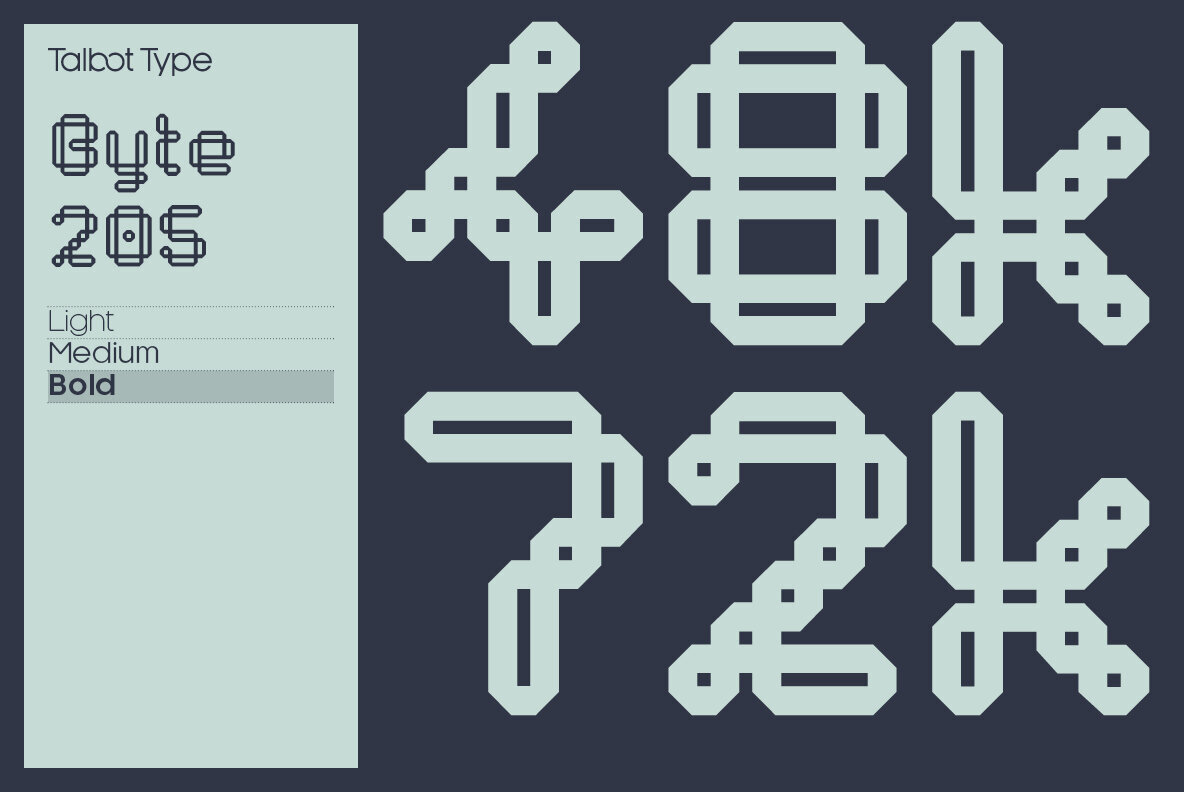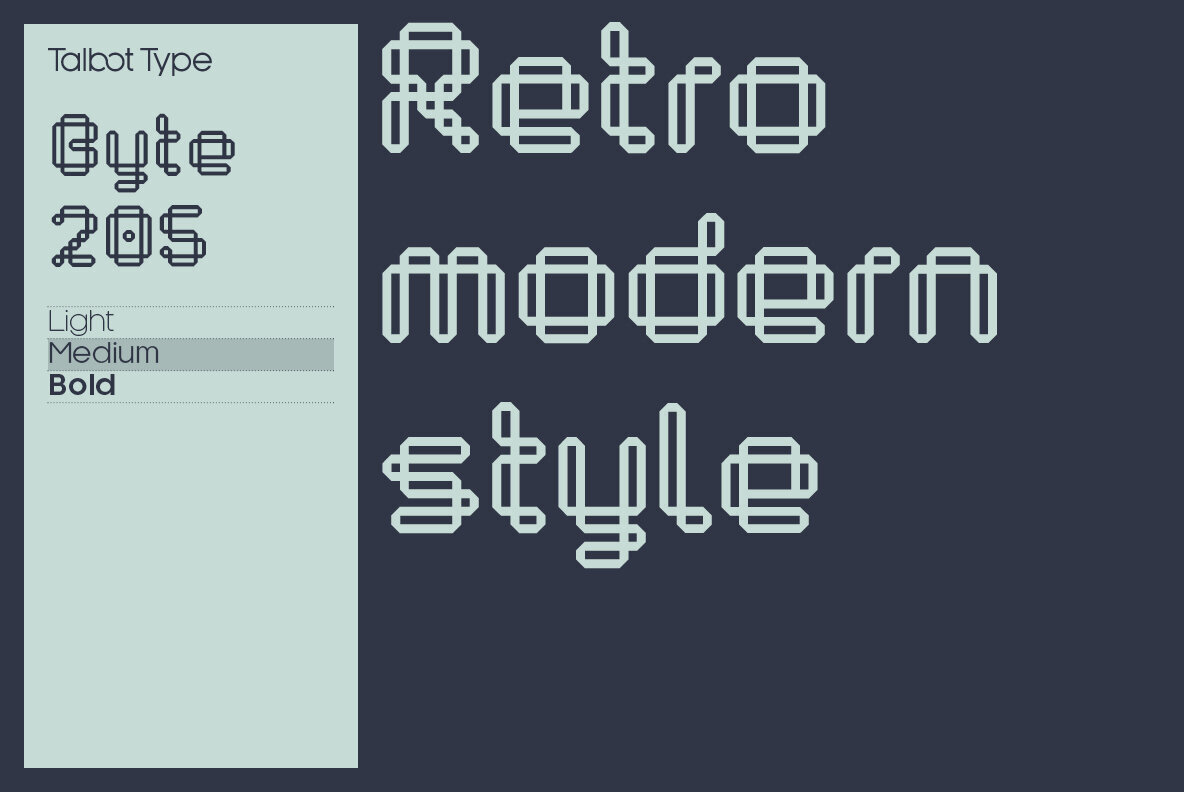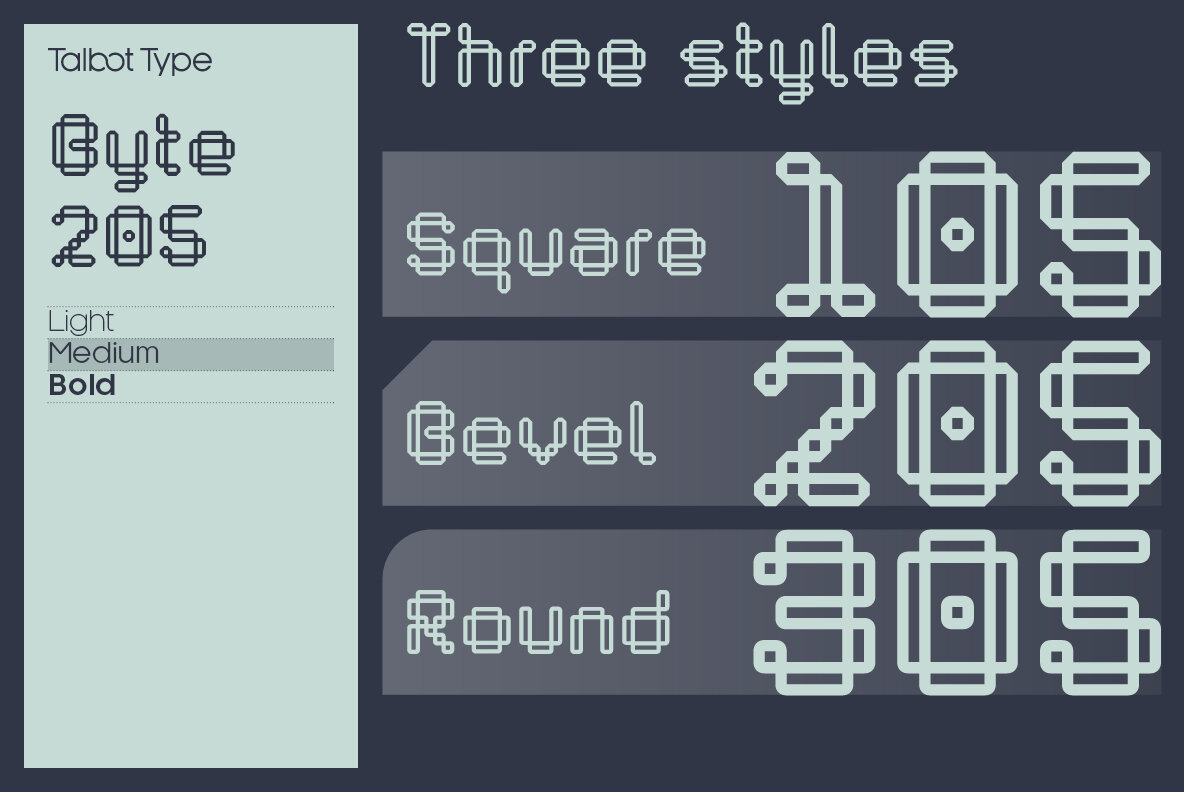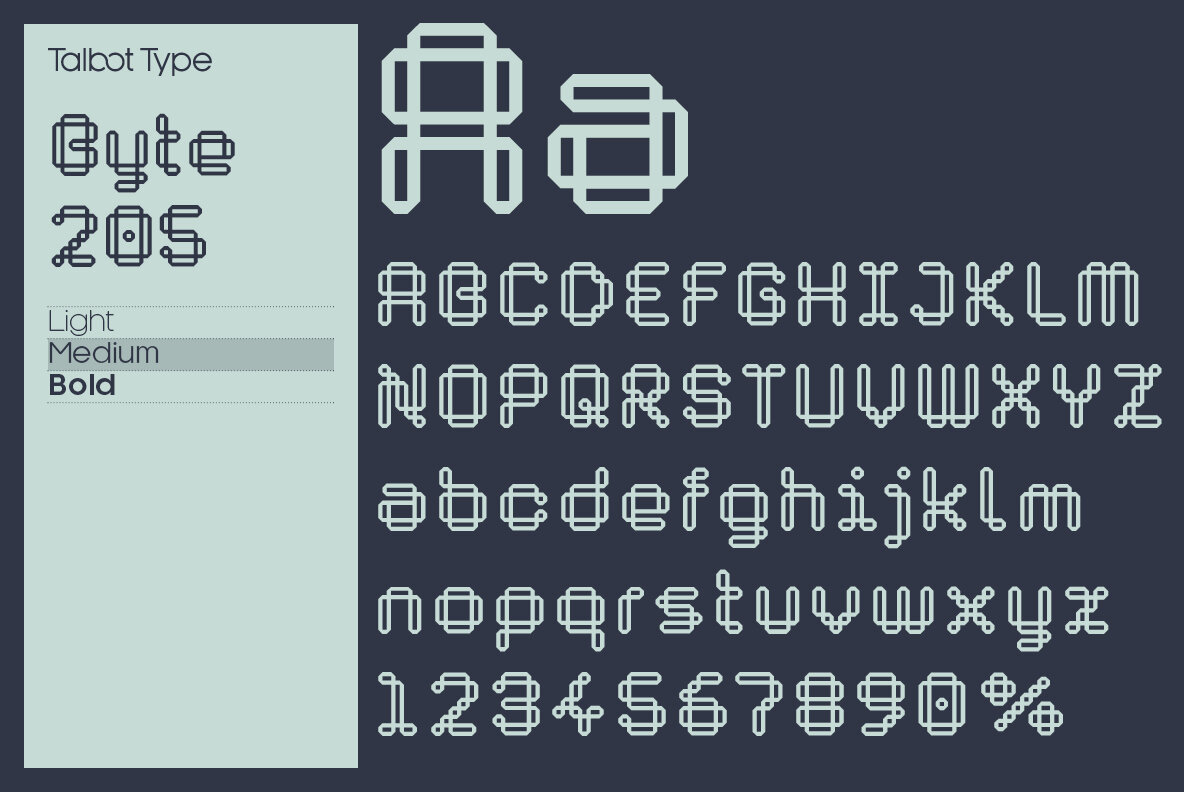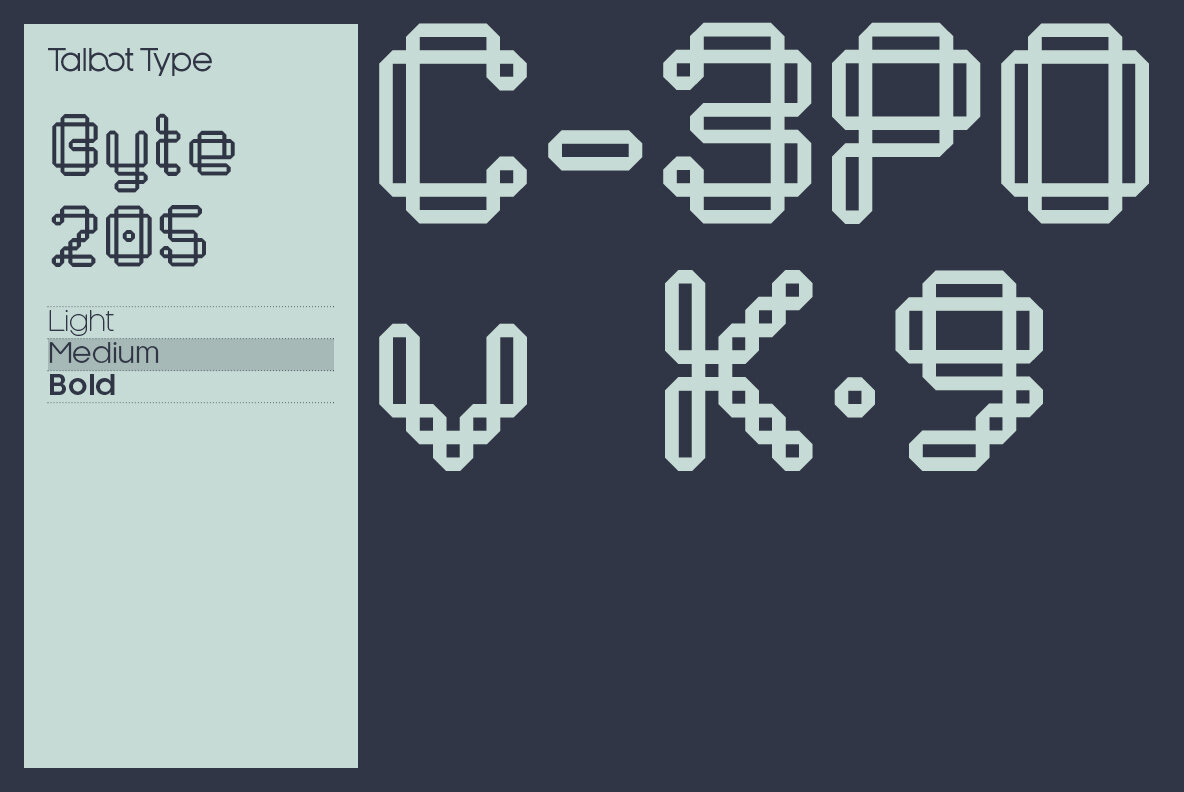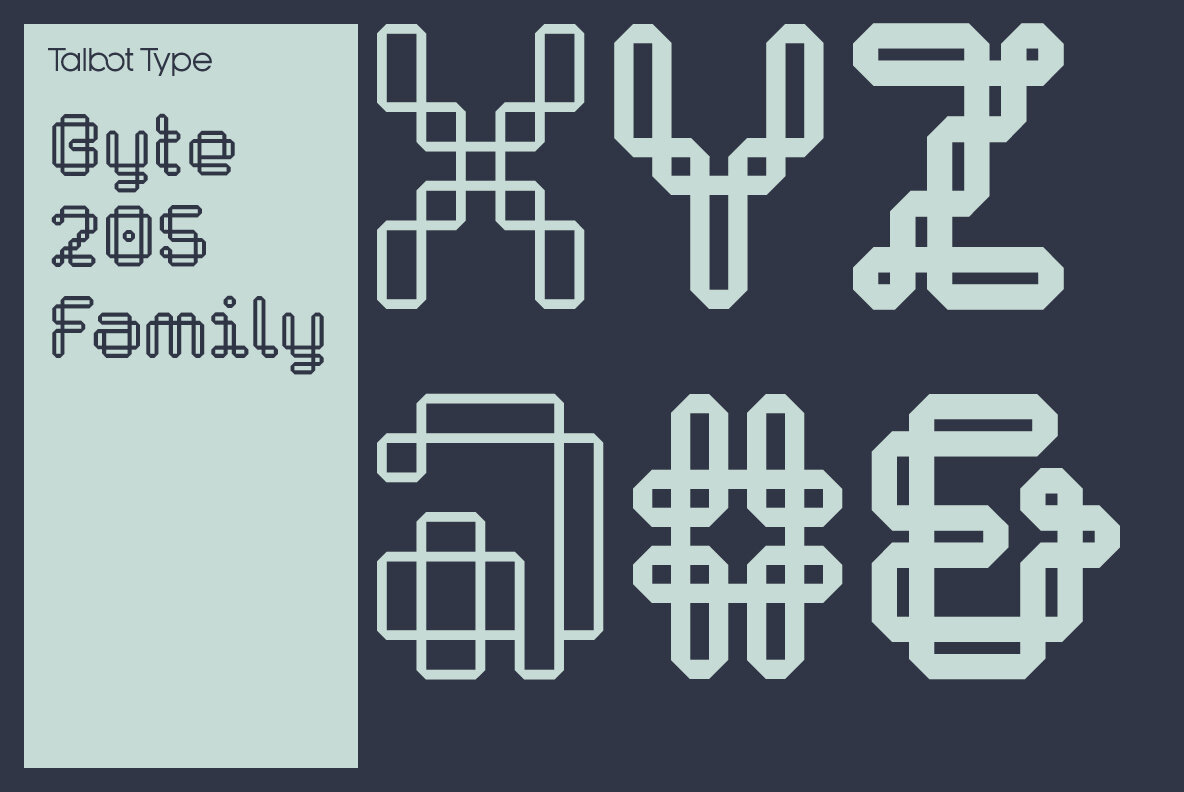
Byte 205 Font
Byte 205 Light
Byte 205 Medium
Byte 205 Bold
Byte 205 is a modular font, resulting from experiments in creating a practical, legible font from a minimum set of geometric components on a uniform grid. It has full upper and lower case character sets and includes all accented characters for Western and Central European languages. It's available in three styles – 105, 205 and 305. Each style has different corners, 105 is square, 205 is bevelled and 305 is round. Each style is available in three weights, Light, Medium and Bold.